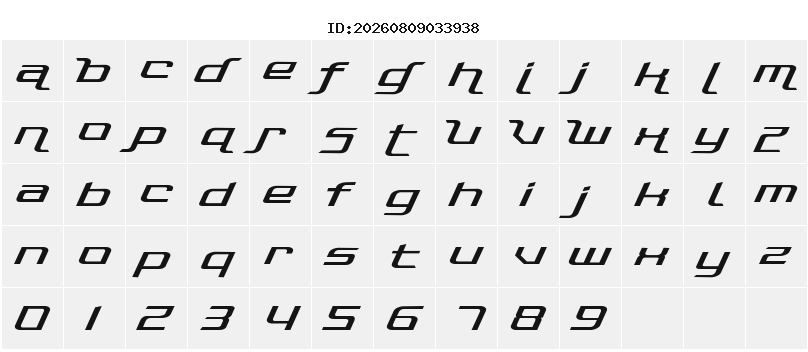
Photonica Preview
• Font Name: Photonica
• Full Font Name: Photonica
About Photonica.ttf
Photonica.ttf is a modern, elegant sans-serif font designed for ultimate readability and visual harmony. Perfect for branding, headlines, web design, and print materials.